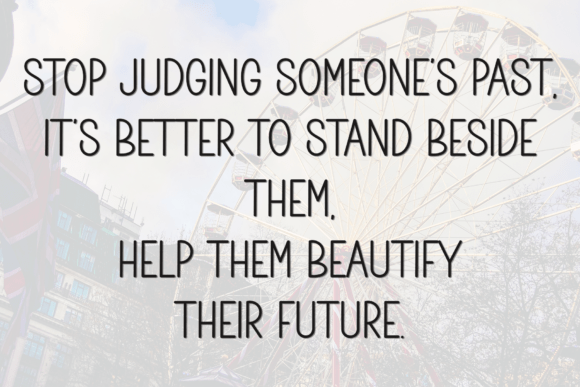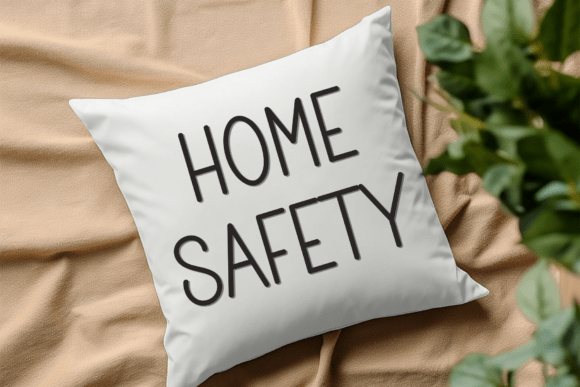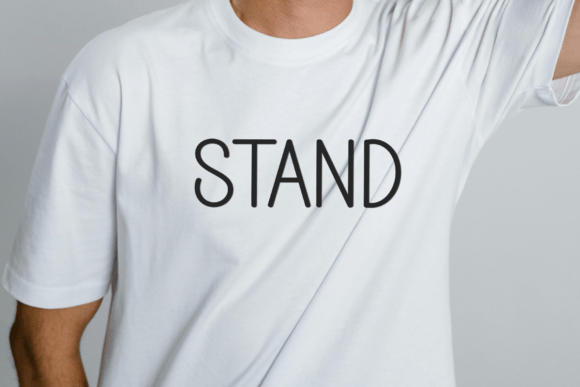
Introduction to Pencil Beautiful Font
As a designer, have you ever found yourself stuck in a creative rut, searching for the perfect font to bring your project to life? The struggle is real, but what if I told you that I’ve stumbled upon a game-changer – the Pencil Beautiful Font. Its unique, soft touch and distinctive strokes make it a standout in the world of design resources.
With its high-quality aesthetic and transparent background, the Pencil Beautiful Font is a valuable addition to any designer’s toolkit. Whether you’re working on a creative project or simply need a design resource to enhance your work, this font is sure to impress. And the best part? It’s available for free download, making it accessible to designers of all levels.
As a design enthusiast, I’m excited to dive deeper into the world of Pencil Beautiful Font and explore its many uses. In this article, we’ll take a closer look at this beautiful font and discover why it’s a must-have for any designer looking to add a touch of creativity to their work.
Key Features of Pencil Beautiful Font
- Pencil Beautiful Font is a high-quality design resource ideal for creative projects requiring a unique touch.
- Features a transparent background, allowing for easy customization and versatility in design applications.
- Designed with a high resolution of 300 DPI, ensuring crisp and clear text rendering in various design contexts.
- Unique characteristics include a hand-drawn aesthetic and subtle texture, adding a personal touch to any creative project.
Honest Review: Pencil Beautiful Font
As a designer, I’m always on the lookout for high-quality design resources to elevate my creative projects. Recently, I stumbled upon the Pencil Beautiful Font, and I must say it’s been a game-changer for me.
Here’s what works well:
- ✨ The font’s subtle imperfections give it a unique, handmade feel that’s perfect for creative projects.
- ✨ The transparent background makes it easy to combine with other design elements and achieve a seamless look.
- ⚠️ The font may not be suitable for large-scale text or headings, as it can become difficult to read at certain sizes.
- ⚠️ The font’s imperfections can also make it challenging to use in situations where precision is crucial.
Overall, I’m impressed with the Pencil Beautiful Font. Its unique aesthetic and high quality make it an excellent choice for designers looking to add some personality to their projects. Just be mindful of its limitations, and you’ll be able to get the most out of this fantastic design resource.
Getting the Most Out of Pencil Beautiful Font
To get the most out of Pencil Beautiful Font, use it in conjunction with other design elements, such as images, graphics, and colors. Experiment with different font sizes, colors, and styles to create a unique and eye-catching design. This font is a great addition to any design project, and its high quality and transparent background make it easy to use.
Pencil Beautiful Font is perfect for a variety of design projects, including:
- Creating custom logos or branding materials
- Designing graphics or illustrations for social media or websites
- Creating presentations or reports that require a unique and creative touch
- Adding a personal touch to documents or letters